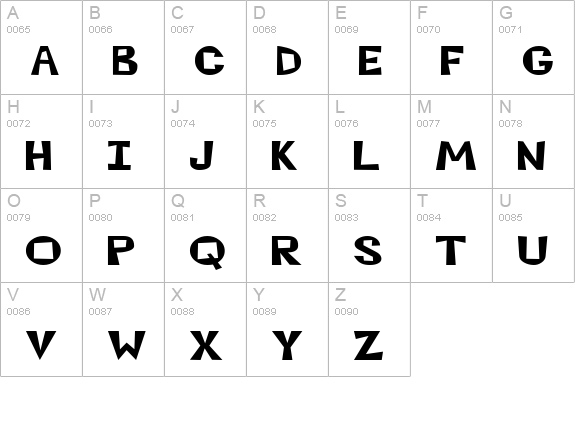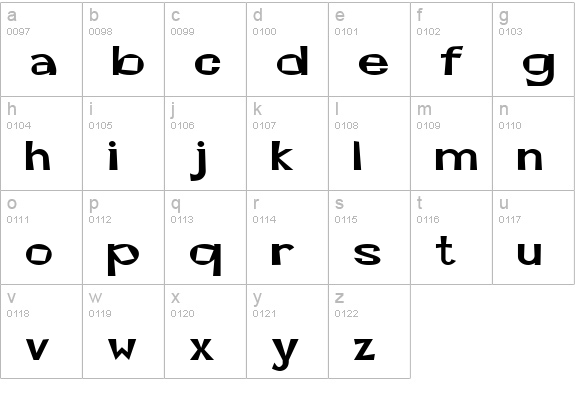
MagooExtended Normal Font Details
MagooExtended Normal is the standard, neutral variant in the MagooExtended typeface family \xE2\x80\x94 well suited to general body text, paragraphs, and standard typographic work.
MagooExtended Normal is a stunningly versatile font that effortlessly combines elegance with a touch of playfulness. It is the perfect choice for those seeking a font that can adapt to various design projects, be it for branding, packaging, invitations, or even social media graphics. With its clean lines and balanced proportions, MagooExtended Normal exudes a timeless appeal that will never go out of style. Its gentle curves and subtle details give it a sense of sophistication, while its slightly rounded edges add a friendly and approachable vibe. One of the greatest advantages of MagooExtended Normal is that it is freely available to download at FontsMarket.com. This means that you can effortlessly incorporate this beautiful font into your creative endeavors without having to worry about any additional costs. Whether you are a professional designer or an aspiring creative, MagooExtended Normal is a valuable addition to your font library. The versatility of MagooExtended Normal is further enhanced by its extensive character set, which includes a wide range of glyphs, ligatures, and alternates. This allows you to experiment with different typographic styles and create unique and eye-catching designs that truly stand out. MagooExtended Normal is designed with readability in mind, ensuring that your messages are easily conveyed and understood by your audience. Its legibility is particularly evident in smaller sizes, making it suitable for body text as well as headlines and titles. In summary, MagooExtended Normal is a free font that effortlessly combines elegance, versatility, and readability. Its clean lines, balanced proportions, and extensive character set make it a valuable asset for any creative project. Download MagooExtended Normal today at FontsMarket.com and unlock the limitless possibilities of this stunning font.